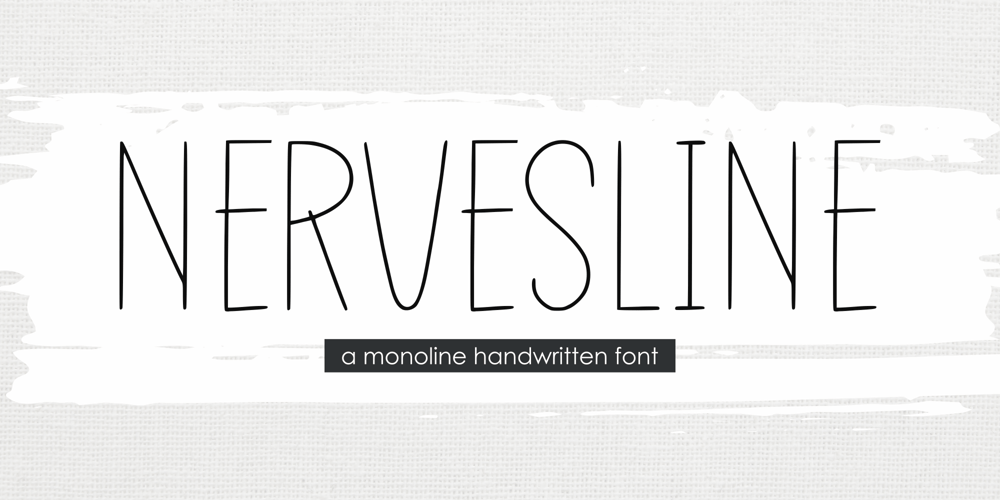
Nervesline Font Family was designed by Fachrizal Yusuf and published by Allouse Studio. Nervesline contains 1 styles and family package options. Proudly Presenting, Nervesline A Thin and Minimalist Handwritten Font.Nervesline is perfect for any titles, logo, product packaging, branding project, megazine, social media, wedding, or just used to express words above the background.Nervesline also come with Multi-Lingual Support.Enjoy the font, feel free to comment or feedback, send me PM or email. Thank You!